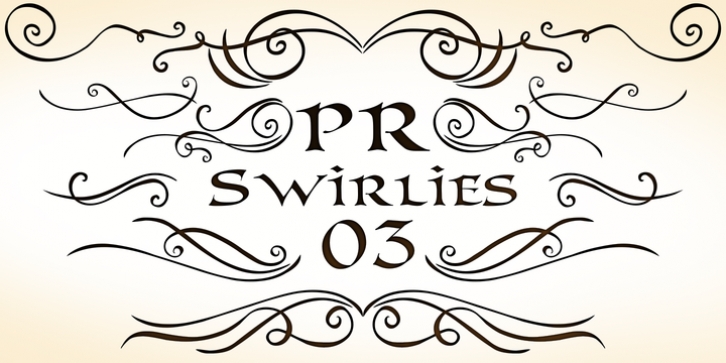
PR Swirlies 03 was designed by Peter Rempel and published by PR Fonts. PR Swirlies 03 contains 1 style.
This set of swirlies oraments is drawn with a pointed brush, for a higher contrast appearance than Swirlies 1 & 2.